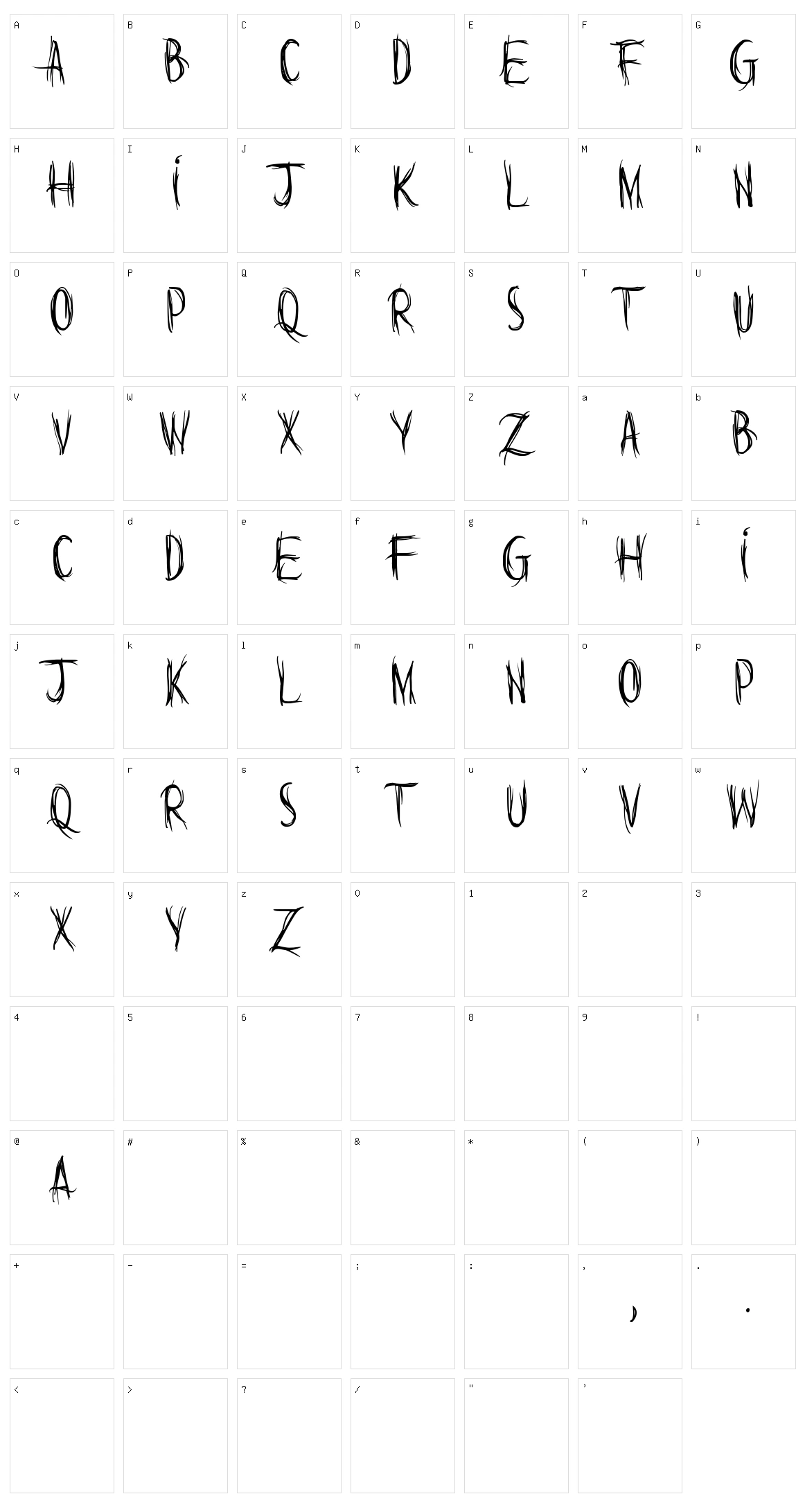
The free font Words are but wind is carefully designed by Poemhaiku, showcasing a thoughtful balance of creativity and usability and falls under the Horror font style. When you download the ZIP file, it contains only 1639.01 KB of font files, making it lightweight and quick to download. Please review the license details below to understand permitted usage and distribution rights. If license information is not available, we recommend using this font for personal projects only or contacting the author directly for commercial usage permissions.